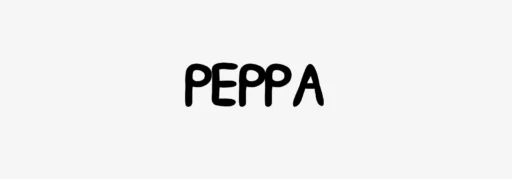
Peppa Font
Peppa shows a playful and rounded style that adds childlike charm to text. The font uses smooth curves and friendly shapes to brighten kids’ books, cartoons, posters, an…
Character set · 227 glyphs
Peppa shows a playful and rounded style that adds childlike charm to text. The font uses smooth curves and friendly shapes to brighten kids’ books, cartoons, posters, and creative branding. Designers pick Peppa when they want to bring joy and energy into their projects.
Where Peppa Font works best
Peppa Font is built for size: event posters, hero headlines and billboard-style layouts.
High contrast display type like Peppa Font reads instantly in thumbnails and motion graphics.
What is Peppa Font good for?
Peppa Font is a Display Fonts typeface tagged Branding, Creative, Display, Display Fonts. It works well for headlines, logos, posters, social media graphics and branding projects that need a distinctive display fonts look.